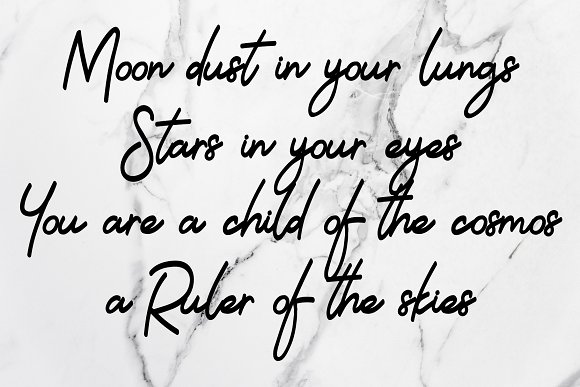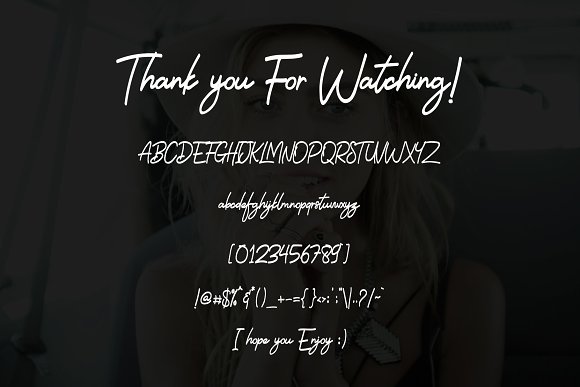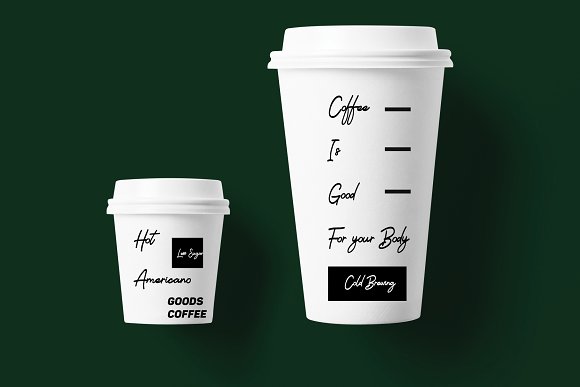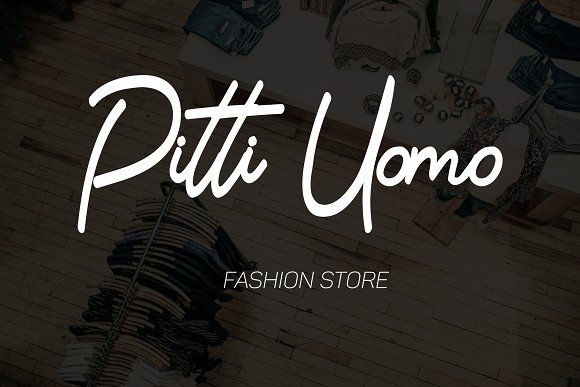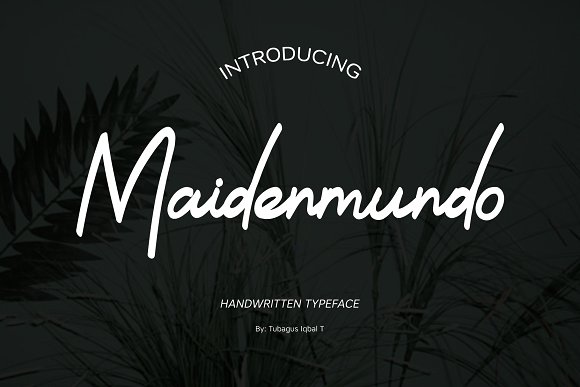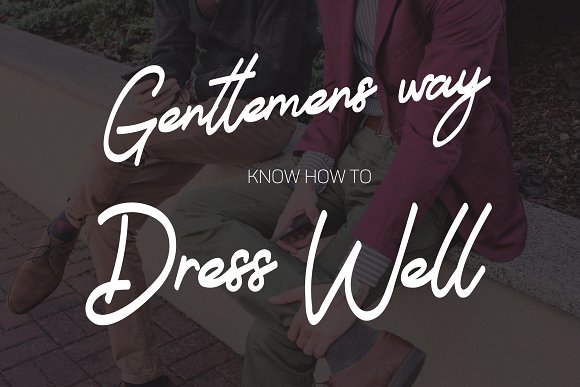
Maidenmundo typeface
Maidenmundo Typeface is a handwritten made, inspired by the daily basis of your notebook scratch. It’s suitable for your text cover or title cover of your design, or even your custom books.